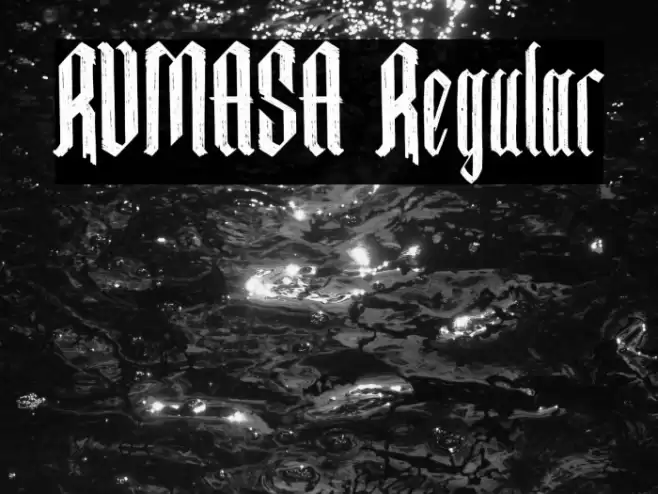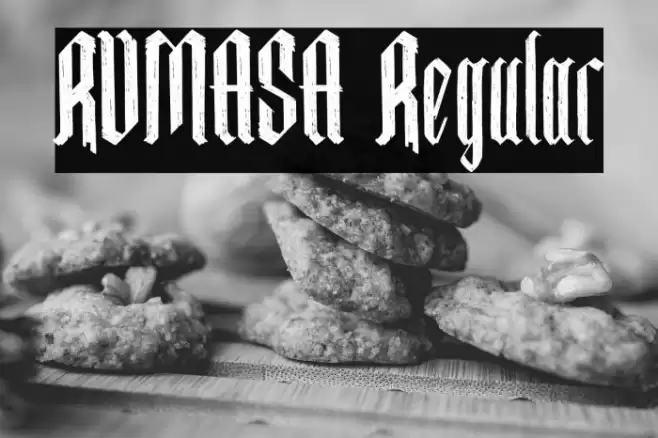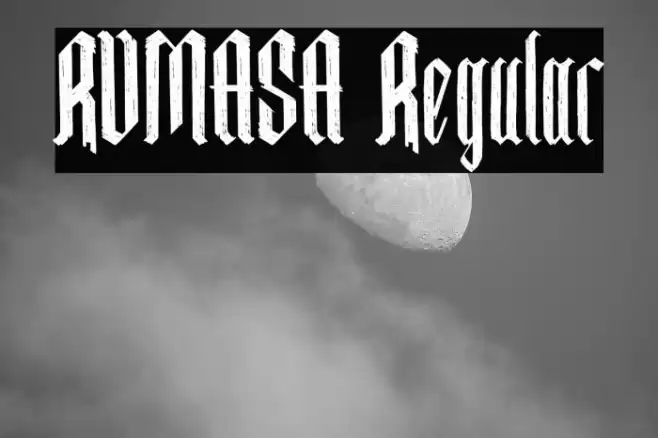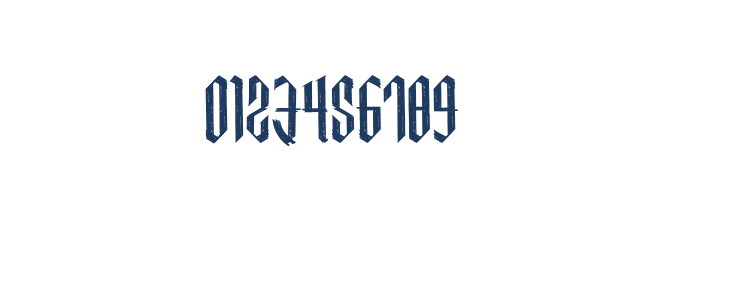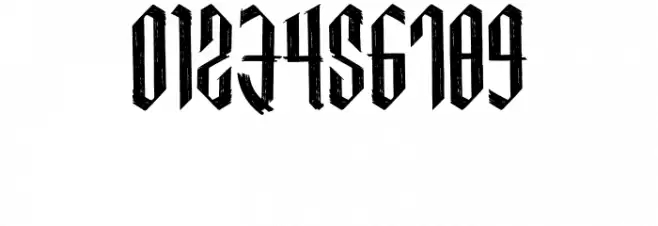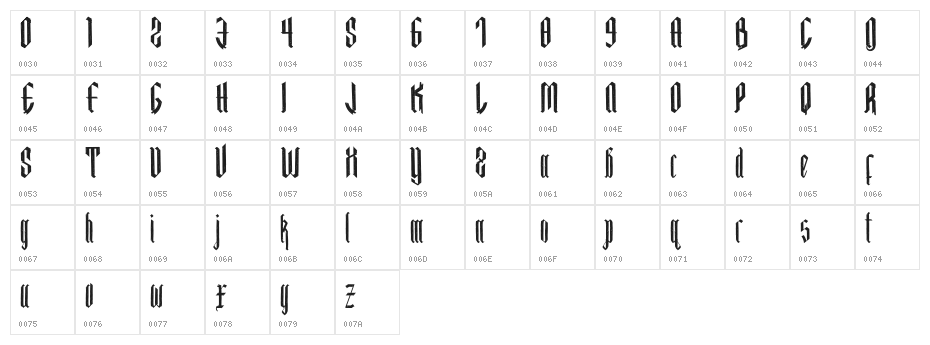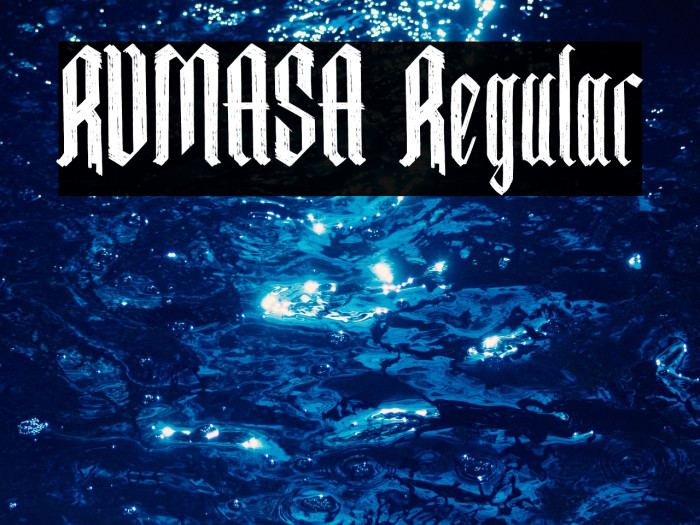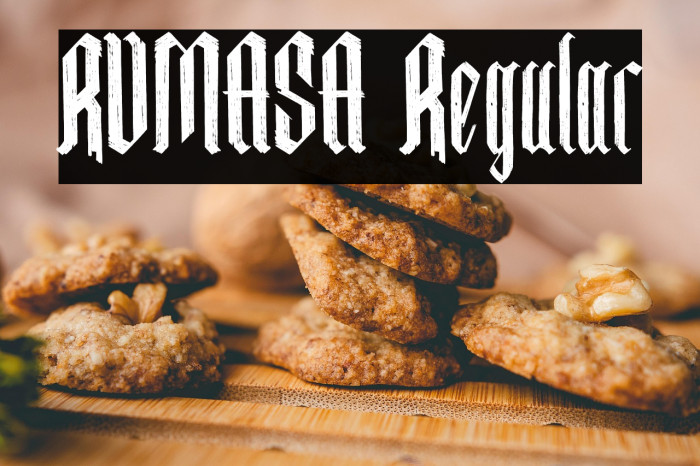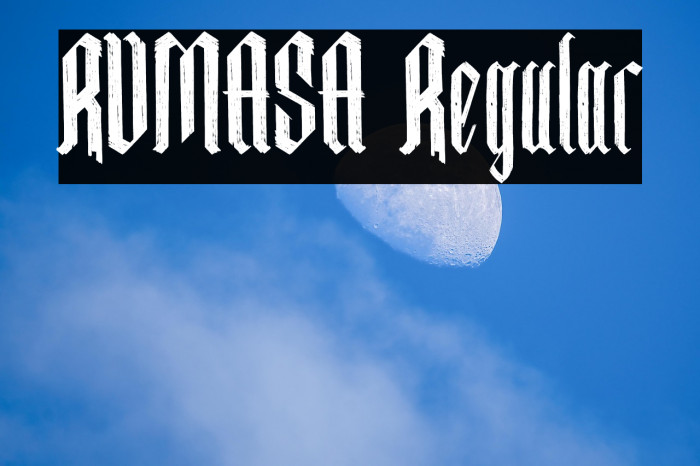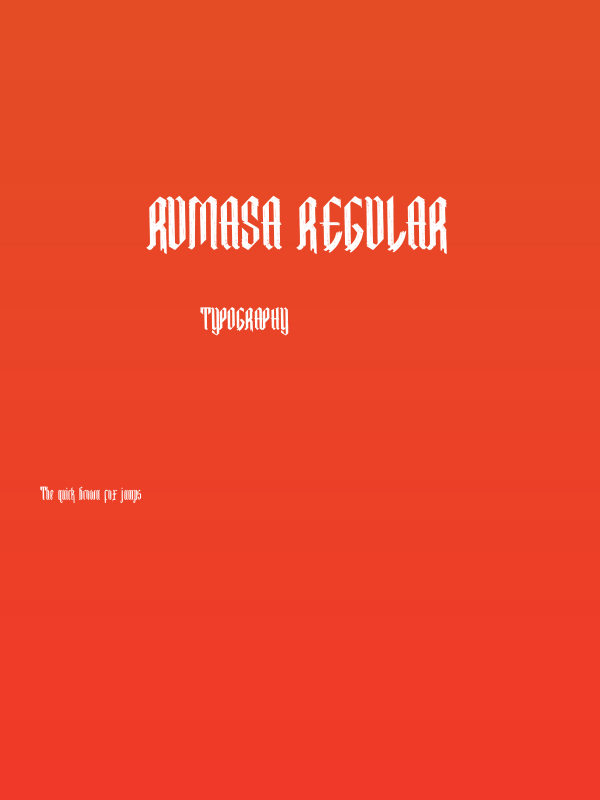
RUMASA Regular Font
RUMASA Regular Description
This font features a bold and striking blackletter style, characterized by its sharp, angular lines and dramatic presence. The uppercase letters exhibit a strong vertical emphasis with intricate detailing, while the lowercase letters maintain a consistent style with slightly more fluidity. The numerals and special characters are designed to match the overall aesthetic, providing a cohesive look. The font's texture gives it a slightly distressed appearance, adding to its vintage charm.
A bold, blackletter-style font with sharp, angular lines and a vintage, distressed texture from Regular fonts.
- Proposed Projects: Ideal for projects that require a historical or gothic touch, such as book covers, posters, or branding for themed events.
- Overall Style: Vintage